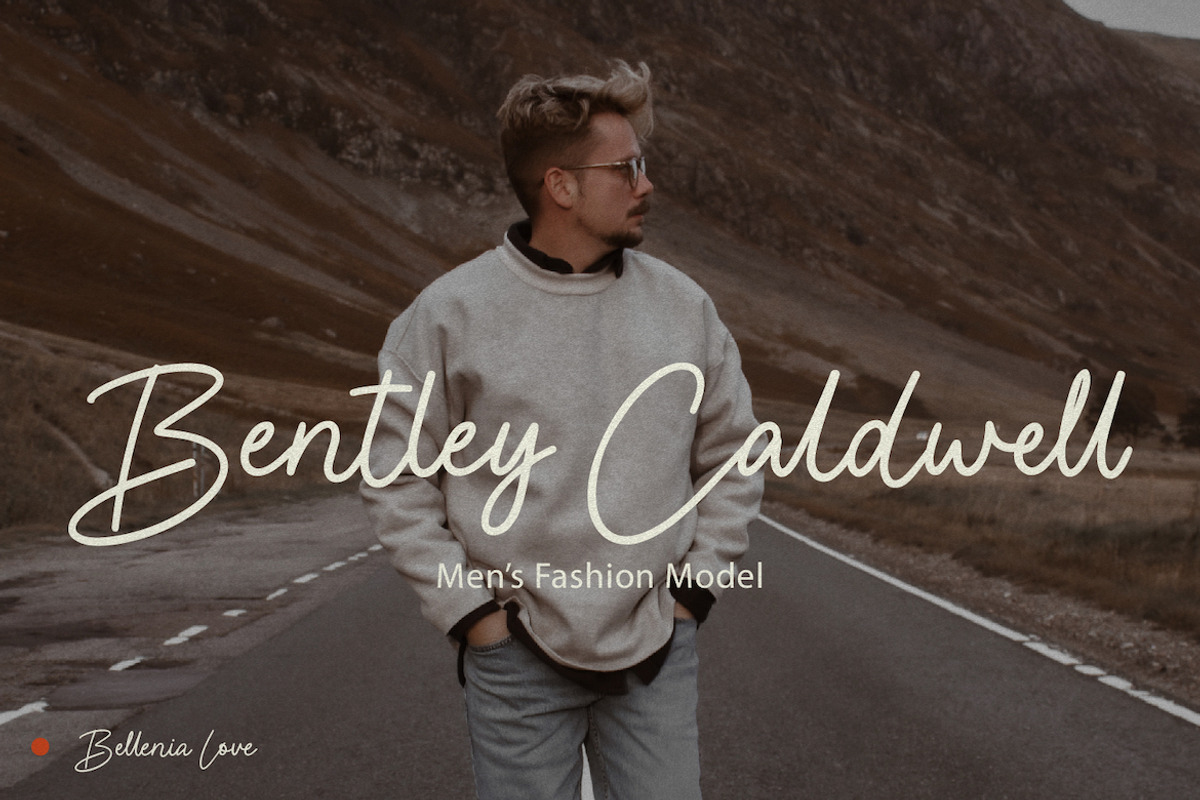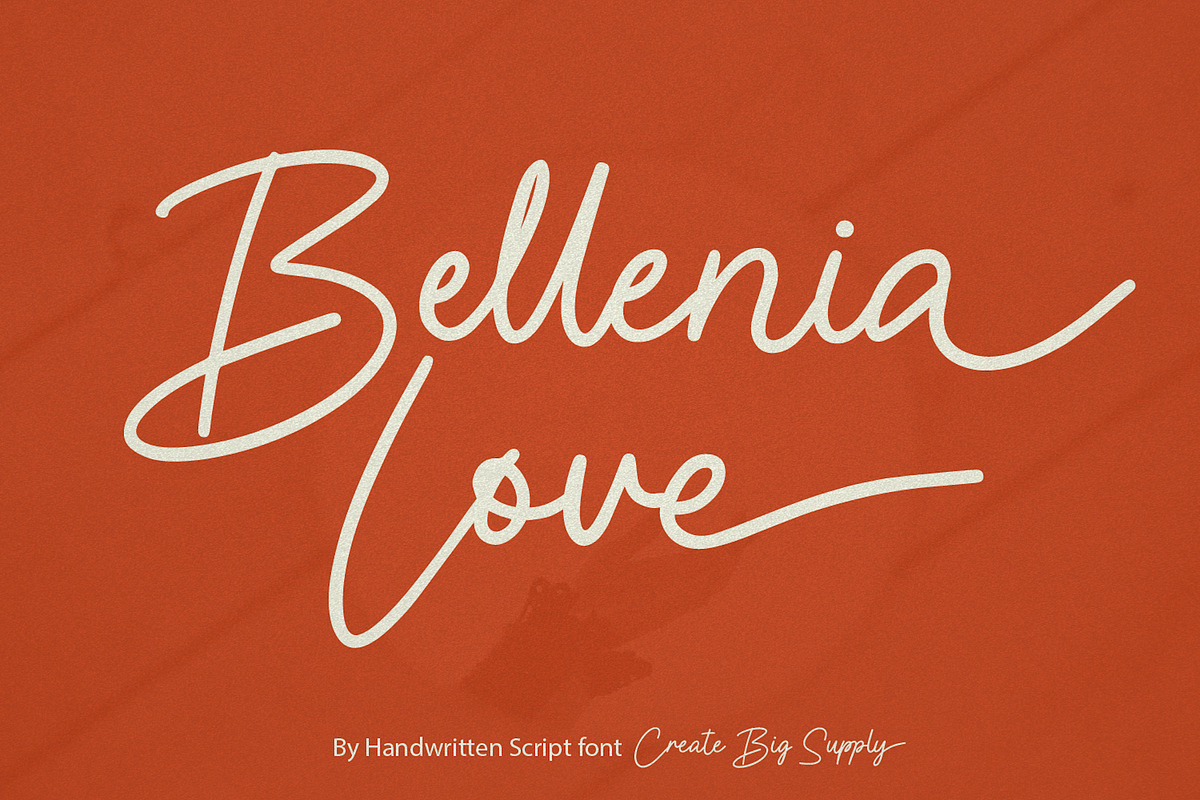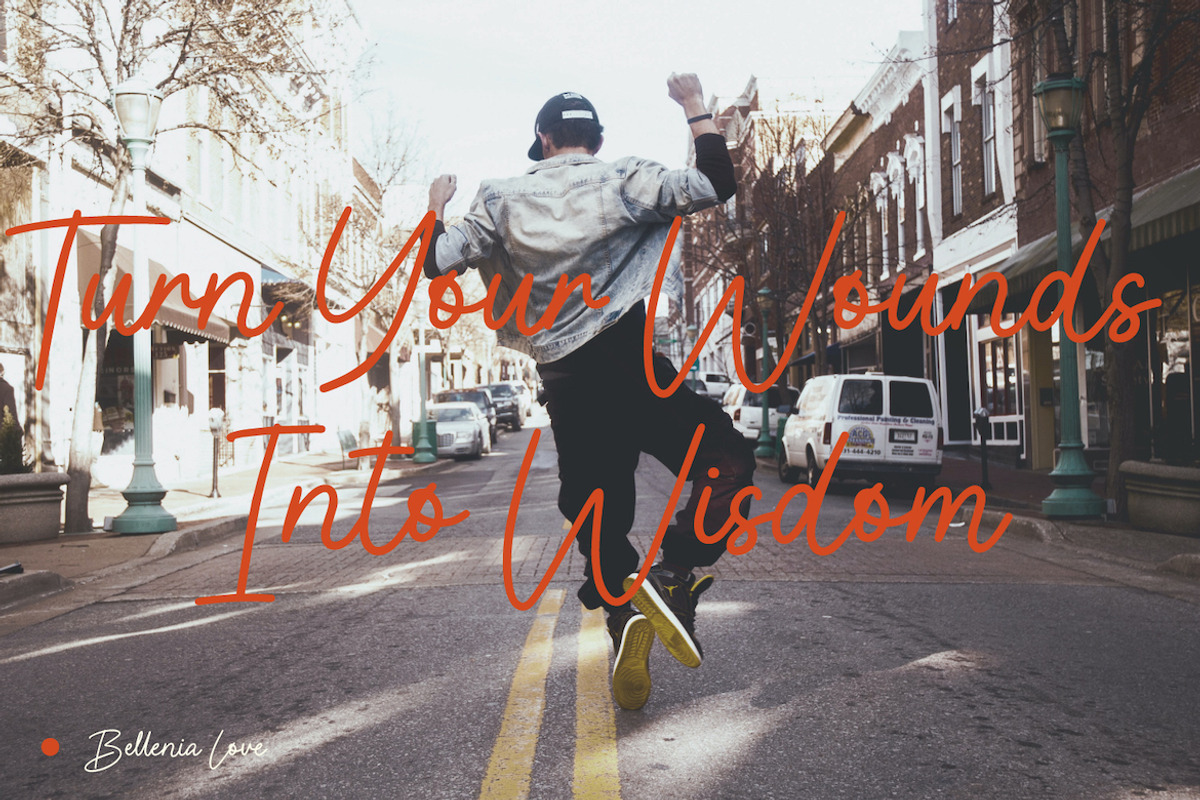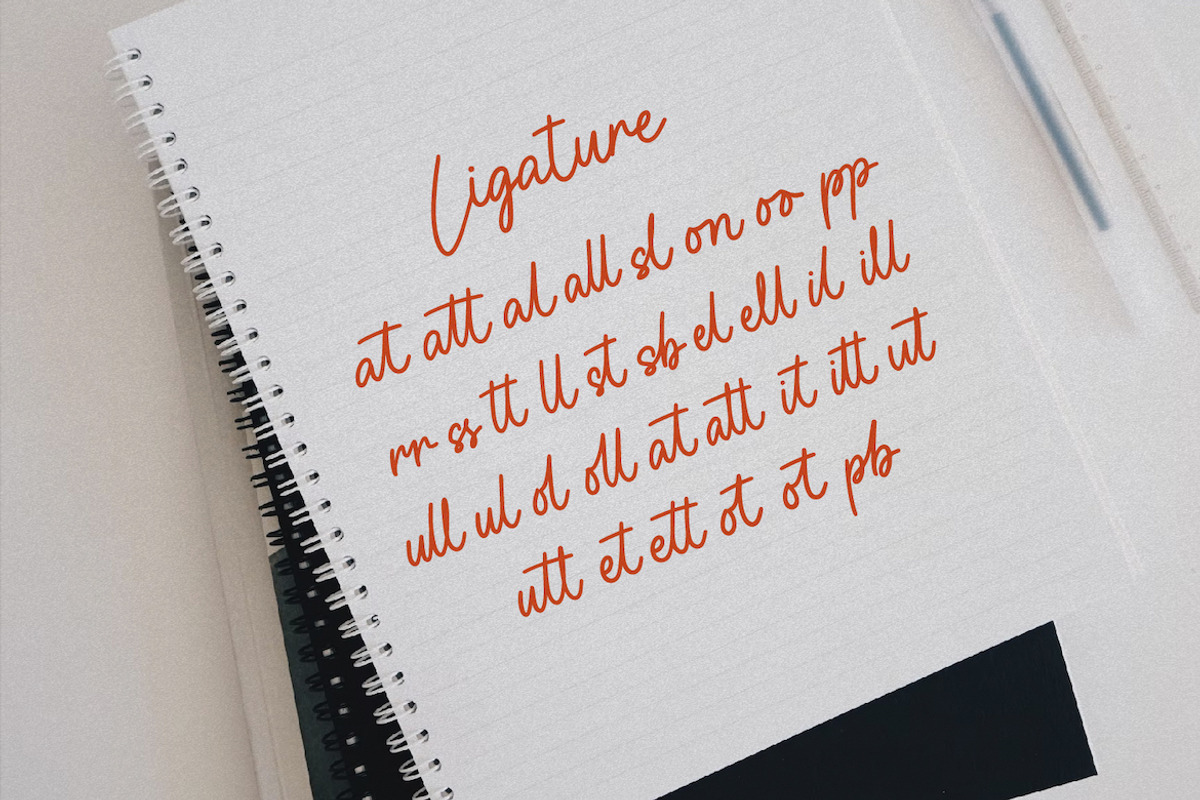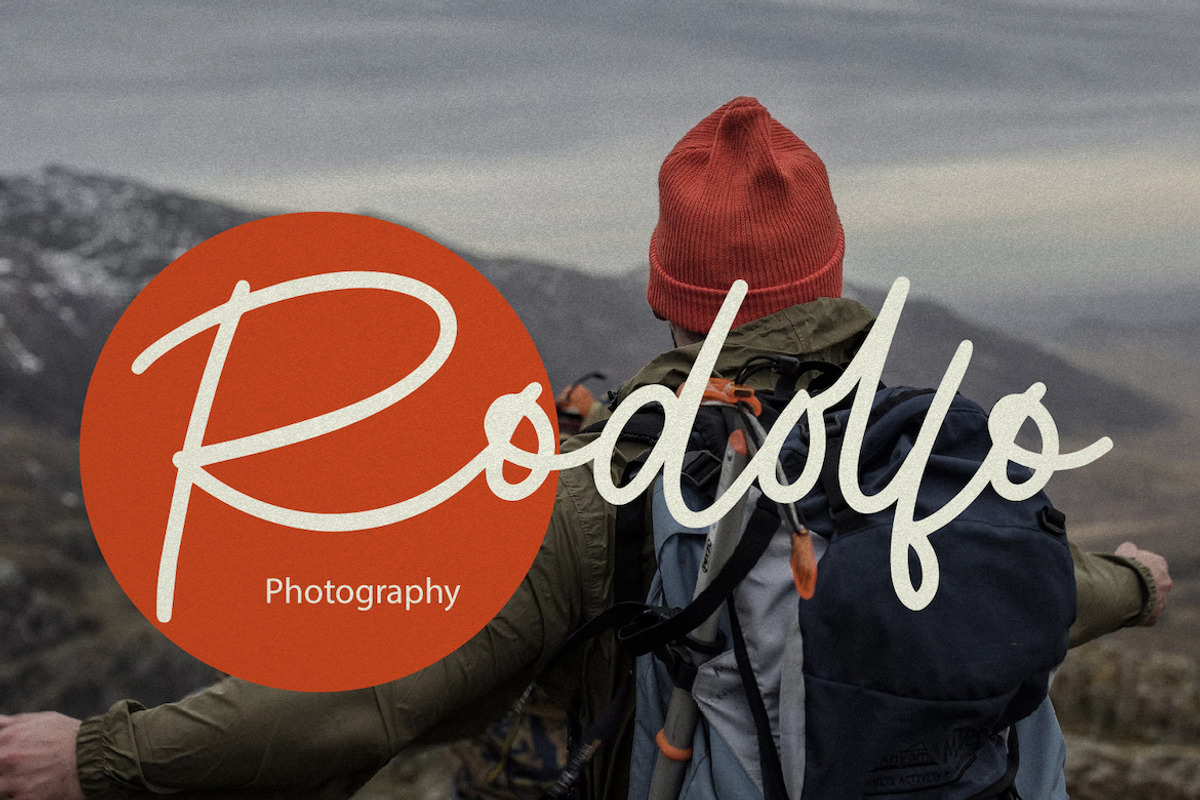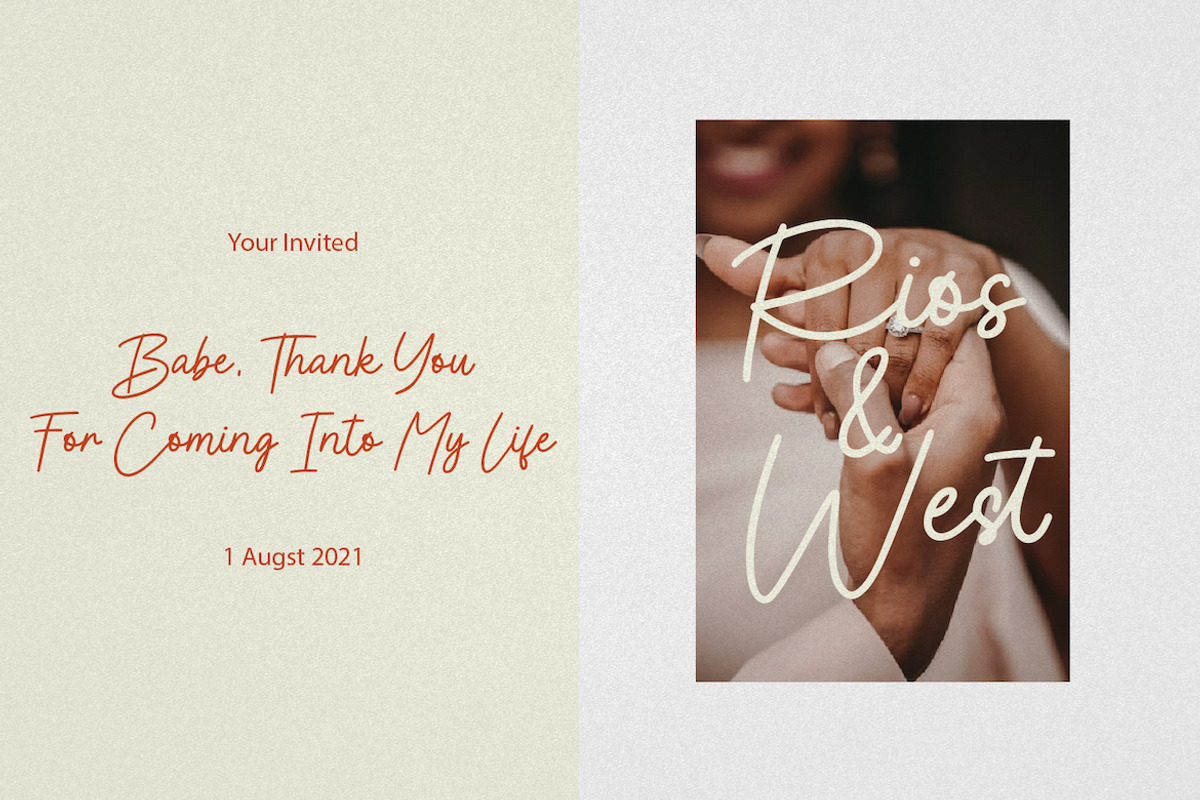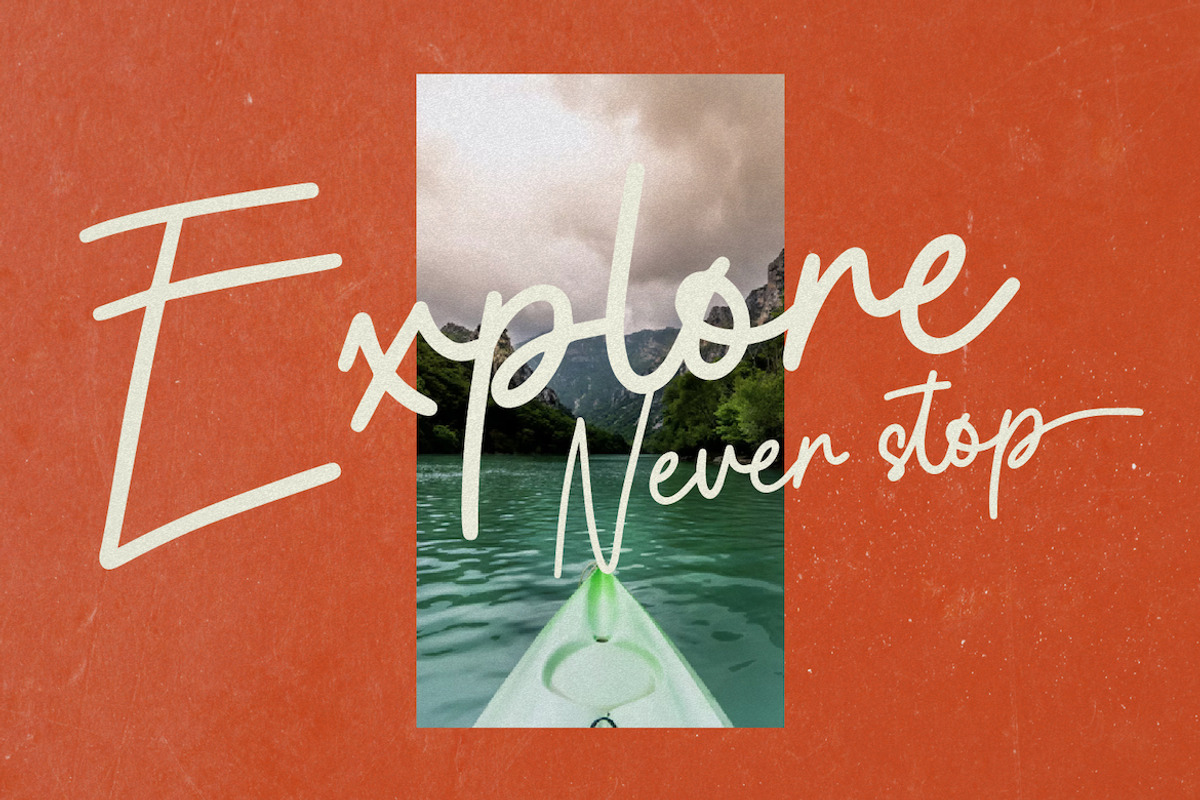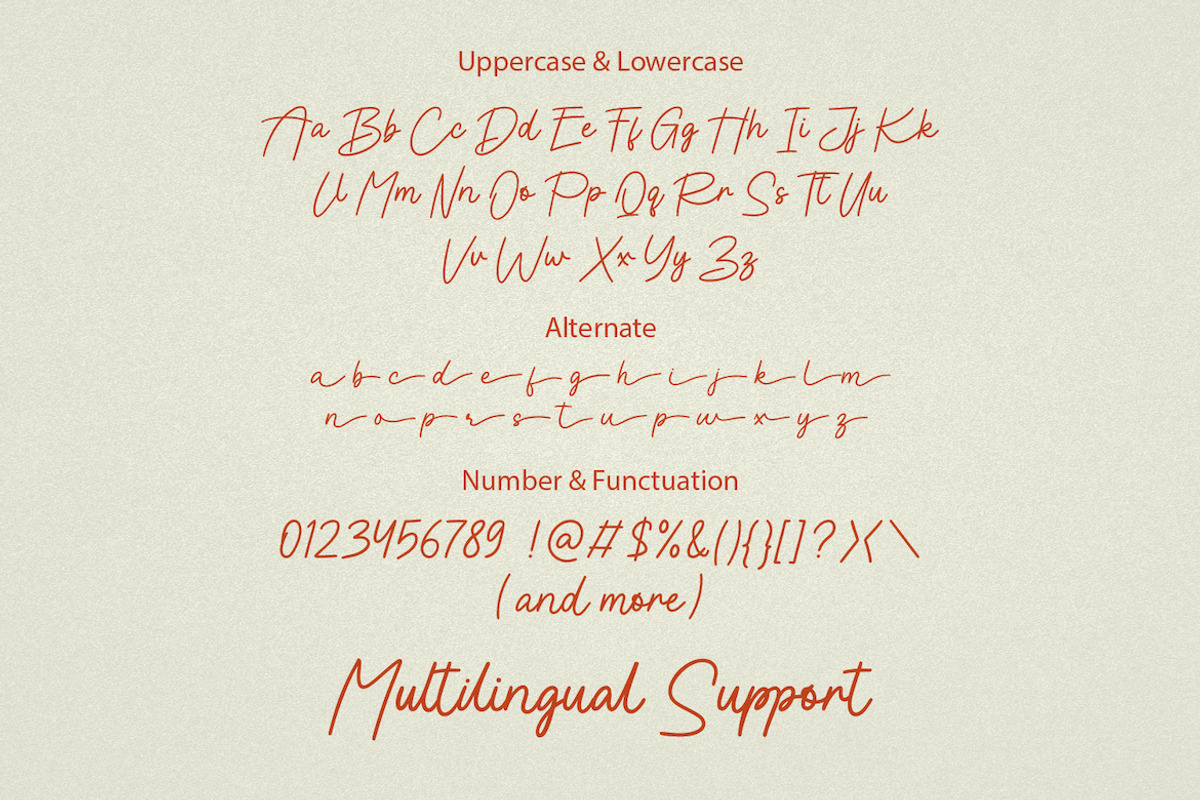
Bellenia Love Handwriting Signature
Introducing Bellenia Love, an exquisite handwriting signature font that adds elegance and grace to your designs. With its thin lettered style, Bellenia Love captivates with its ravishing beauty. Use this font to create stunning wedding invitations, exquisite stationary art, eye-catching social media posts, and much more. Bellenia Love features both uppercase and lowercase letters, numbers, and punctuations, ensuring versatility in your designs. It supports multilingual characters, allowing you to communicate your message globally. With ligatures, alternates, and PUA encoding, accessing a full range of design possibilities is effortless. Fall in love with Bellenia Love and create gorgeous, captivating designs that leave a lasting impression.